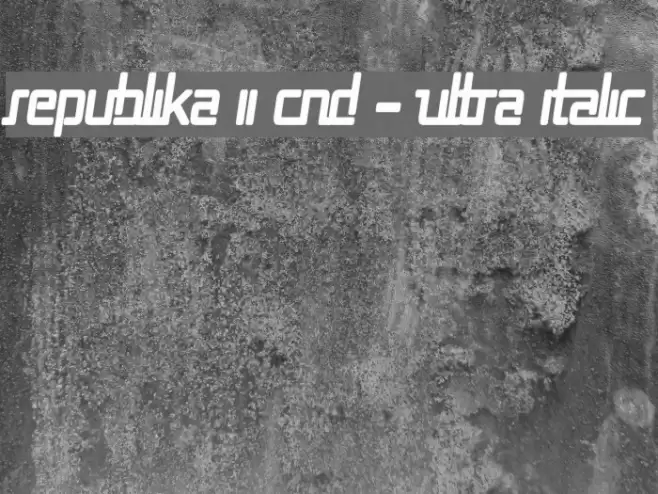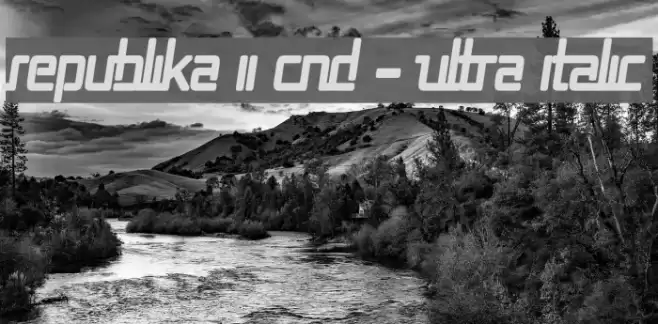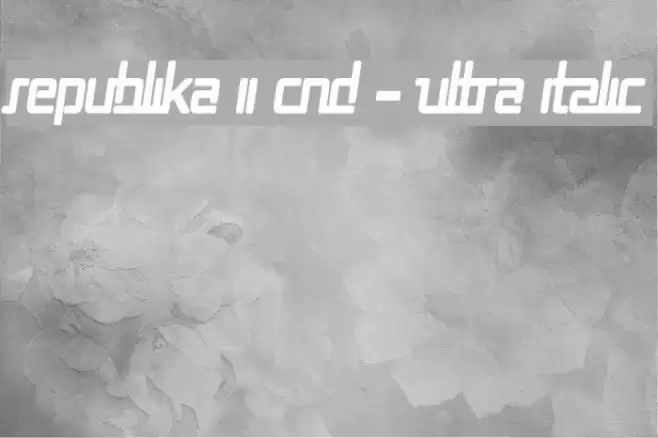
Republika II Cnd - Ultra Italic Font
Republika II Cnd - Ultra Italic Description
This font features a bold and ultra-italicized style with a condensed width, giving it a dynamic and modern appearance. The characters are tightly spaced, enhancing its compact and sleek look. The strokes are thick and consistent, providing a high contrast that makes the font stand out. Its geometric and angular design elements contribute to a futuristic and edgy feel, making it suitable for attention-grabbing headlines and impactful designs. The uppercase and lowercase letters maintain a uniform style, while the numerals and special characters complement the overall aesthetic.
A bold, ultra-italic, condensed font with high contrast and a modern, dynamic style from Uncategorized fonts.
- Proposed Projects: Ideal for futuristic branding, sports team logos, tech-related projects, and dynamic poster designs.
- Character Spacing: Tight